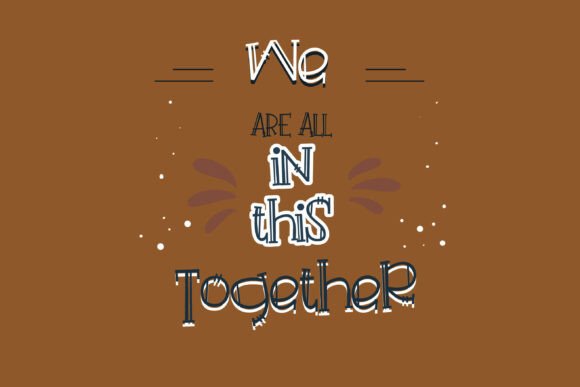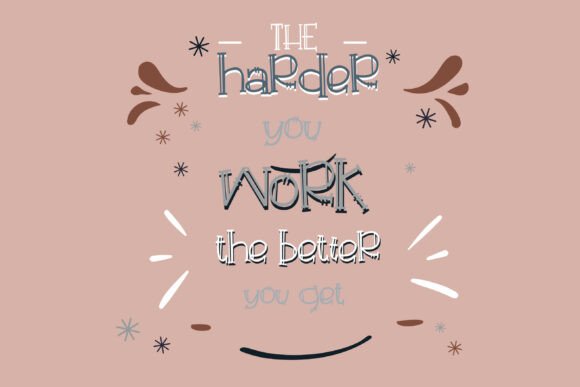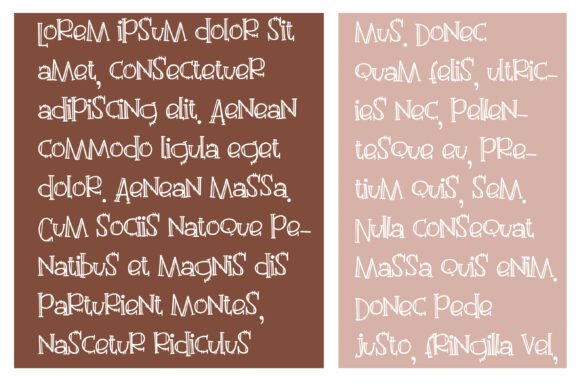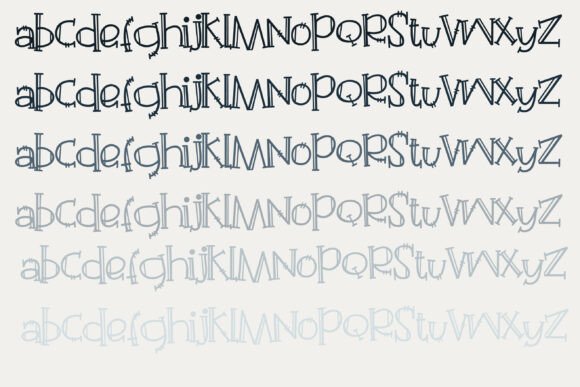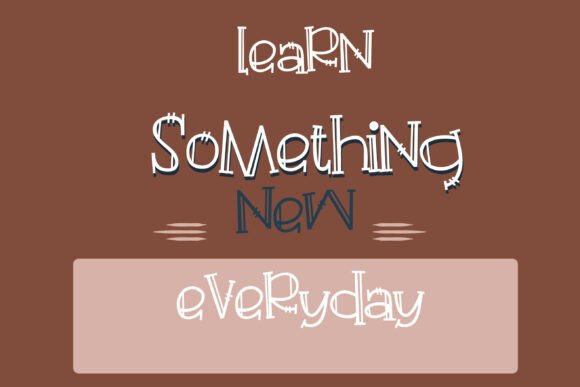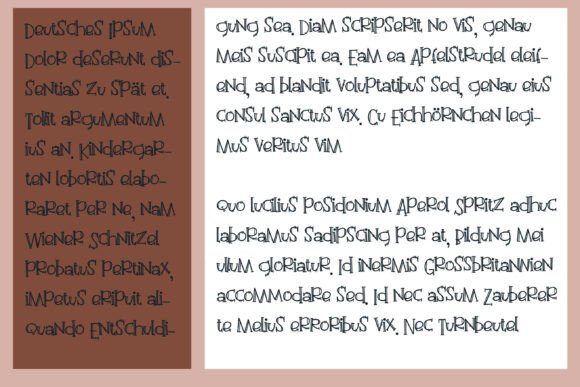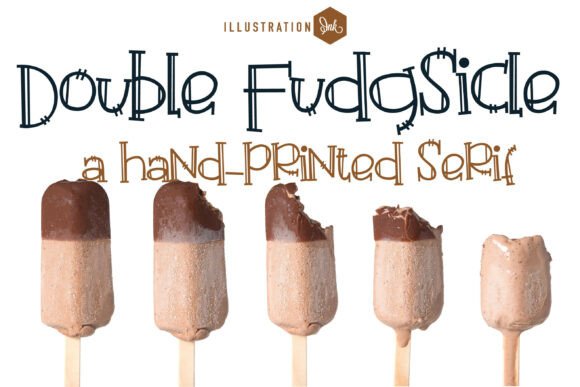
Introducing Double Fudgsicle Font: The Sweetest Addition to Your Design Collection
Are you tired of using the same old fonts in your designs? Look no further than Double Fudgsicle, a whimsical display typeface that’s sure to add a touch of nostalgia and playfulness to your work. With its unique, double-lined letterforms, rhythmic “stitch” serifs, and playful geometric accents, Double Fudgsicle is the perfect choice for designers and crafters looking to add a little something special to their projects.
A Font that Captures a Nostalgic-and-Handcrafted Soul
Double Fudgsicle is more than just a font – it’s an experience. Its tall, slender proportions and charming hand-printed irregularities evoke a sense of nostalgia and handcrafted charm that’s perfect for independent ice cream parlor branding, artisanal confectionery packaging, quirky children’s book titles, and high-impact “retro-summer-treat” social media headers. Whether you’re a designer, crafter, or simply someone who loves unique and eye-catching typography, Double Fudgsicle is sure to delight.
Unique Features of Double Fudgsicle Font
So what sets Double Fudgsicle apart from other fonts? Here are just a few of its unique features:
- Double-lined letterforms: Double Fudgsicle’s letterforms are made up of two distinct lines, giving the font a playful and whimsical feel.
- Rhythmic “stitch” serifs: The font’s serifs are designed to resemble stitches, adding a touch of handmade charm to your designs.
- Playful geometric accents: Double Fudgsicle includes a range of geometric accents that can be used to add visual interest and personality to your designs.
- Tall, slender proportions: The font’s tall, slender proportions make it perfect for headlines and titles that need to stand out.
- Charming hand-printed irregularities: Double Fudgsicle’s hand-printed irregularities give the font a unique, human touch that’s perfect for designs that need a little extra character.
Perfect for a Range of Design Projects
Double Fudgsicle is a versatile font that can be used for a wide range of design projects, including:
- Independent ice cream parlor branding: Double Fudgsicle’s playful, nostalgic vibe makes it perfect for ice cream shops and other sweet treat businesses.
- Artisanal confectionery packaging: The font’s handcrafted charm and whimsical feel make it a great choice for packaging artisanal candies and other treats.
- Quirky children’s book titles: Double Fudgsicle’s playful, eye-catching design makes it perfect for children’s book titles that need to stand out.
- High-impact “retro-summer-treat” social media headers: The font’s nostalgic vibe and bold design make it perfect for social media headers that need to grab attention.
Why Choose Double Fudgsicle Font?
So why should you choose Double Fudgsicle for your design projects? Here are just a few reasons:
- Unique and eye-catching design: Double Fudgsicle’s unique design is sure to grab attention and add visual interest to your designs.
- Versatile and adaptable: The font can be used for a wide range of design projects, from branding and packaging to social media headers and children’s book titles.
- Nostalgic and handcrafted charm: Double Fudgsicle’s nostalgic vibe and handcrafted charm make it perfect for designs that need a little extra personality.
Get Ready to Treat Your Designs to Something Sweet
If you’re looking for a font that will add a touch of whimsy and playfulness to your designs, look no further than Double Fudgsicle. With its unique double-lined letterforms, rhythmic “stitch” serifs, and playful geometric accents, this font is sure to delight designers and crafters alike. So why wait? Treat your designs to something sweet with Double Fudgsicle font today!